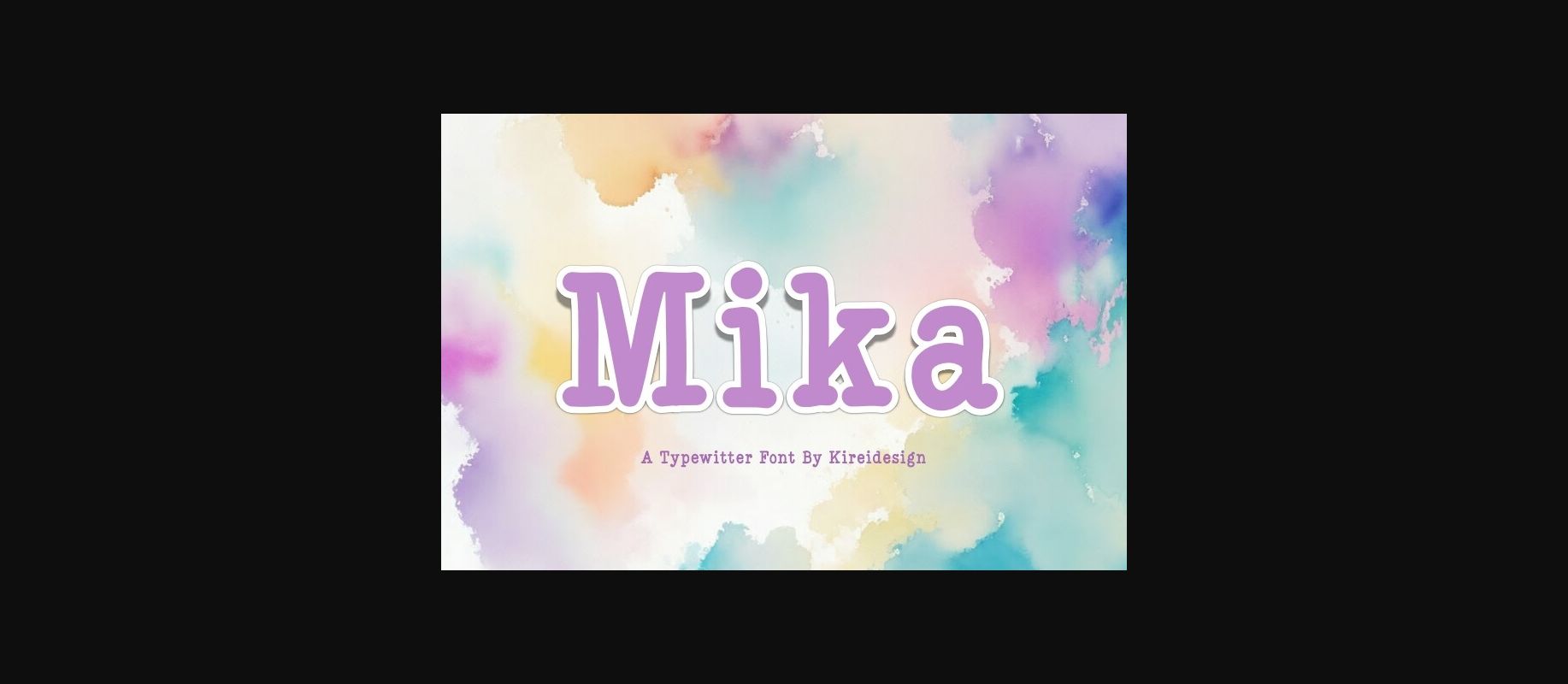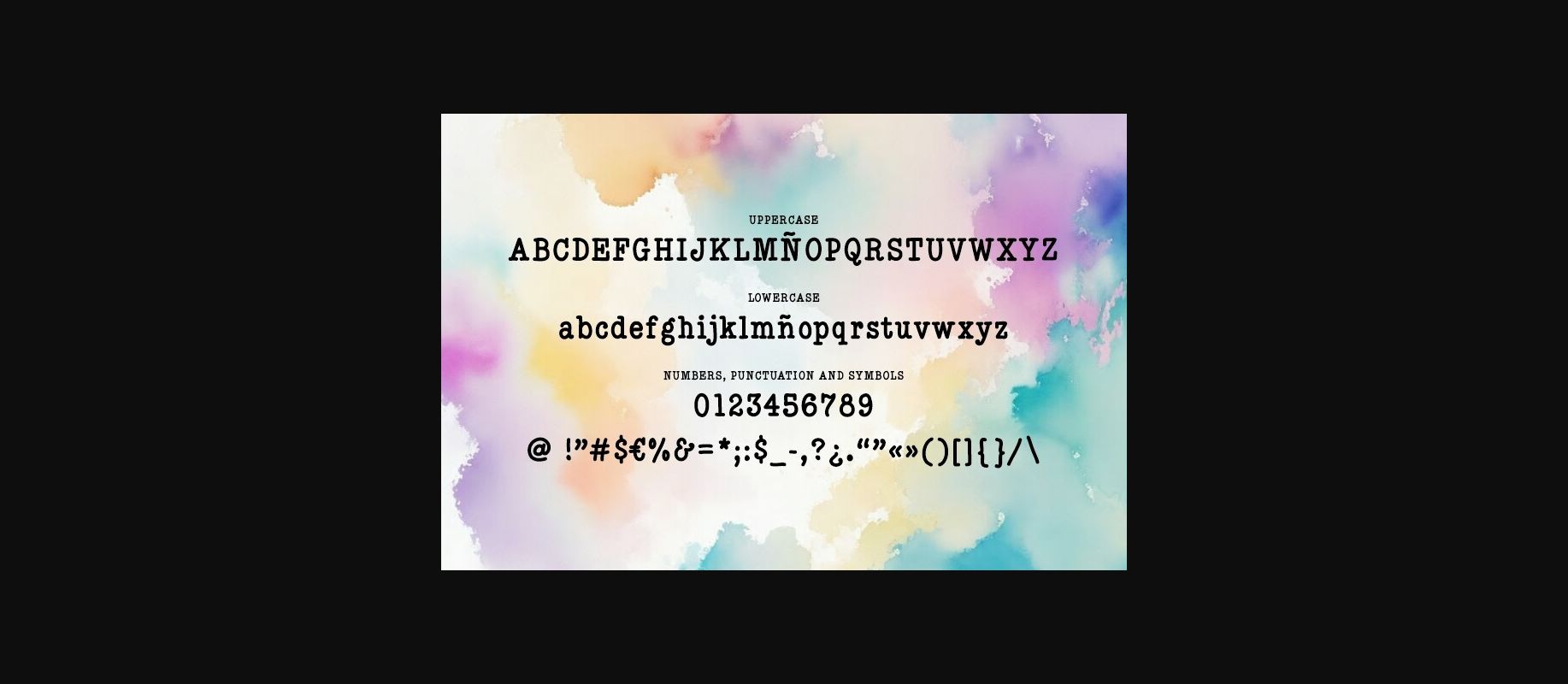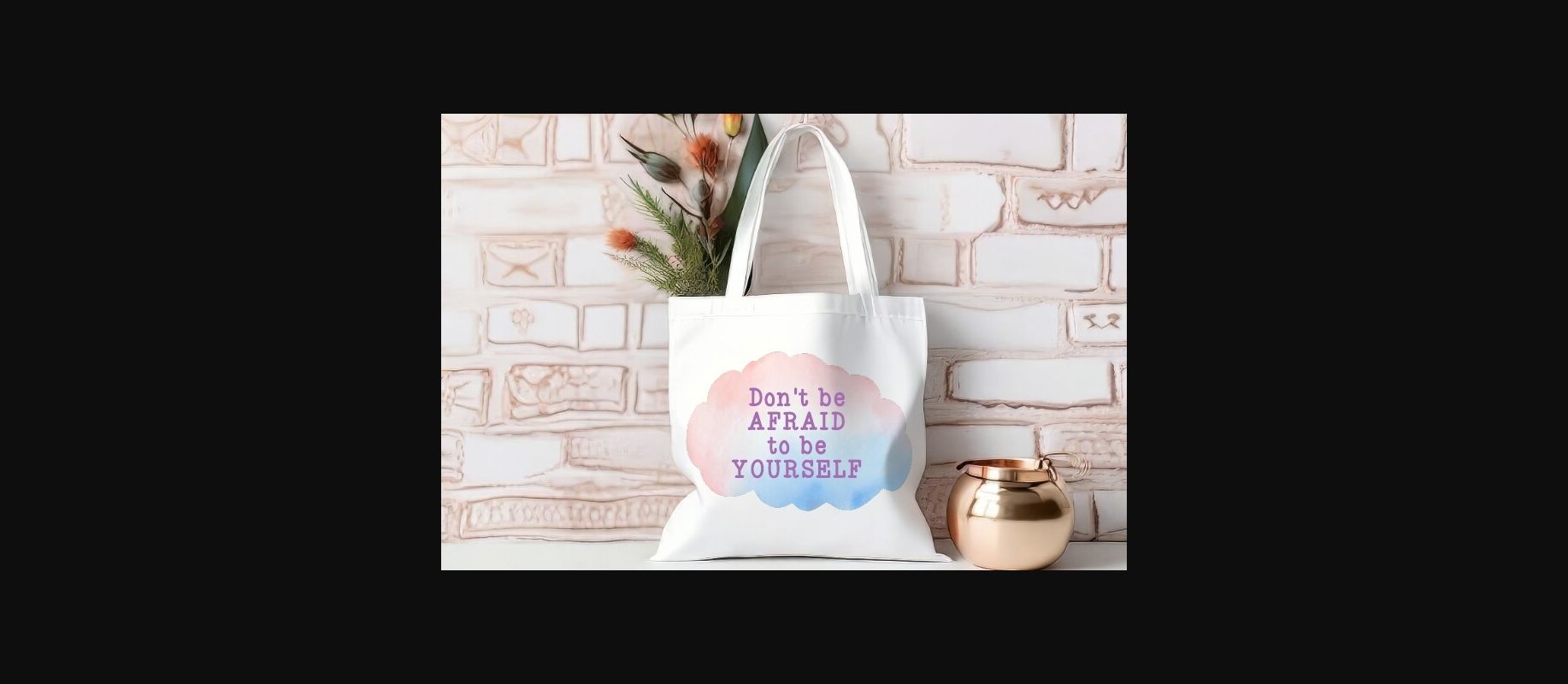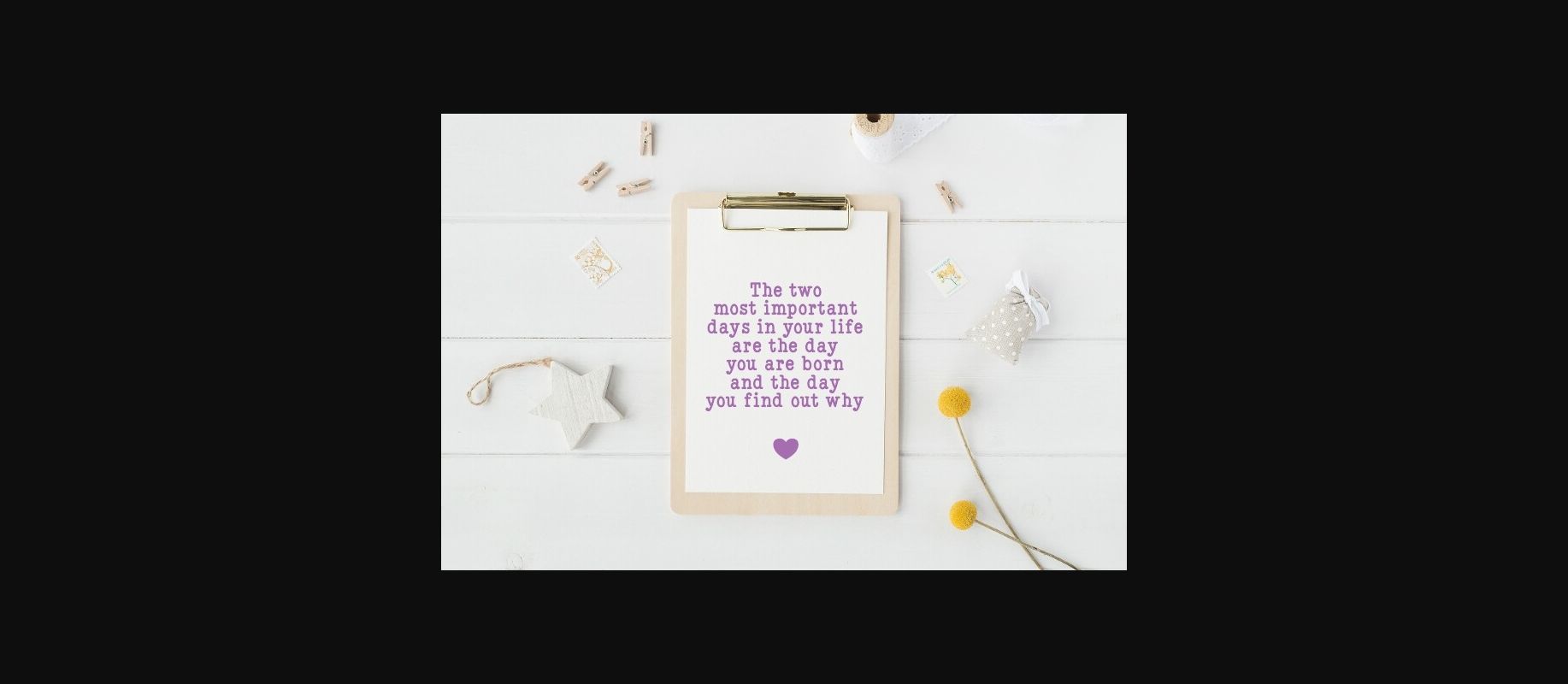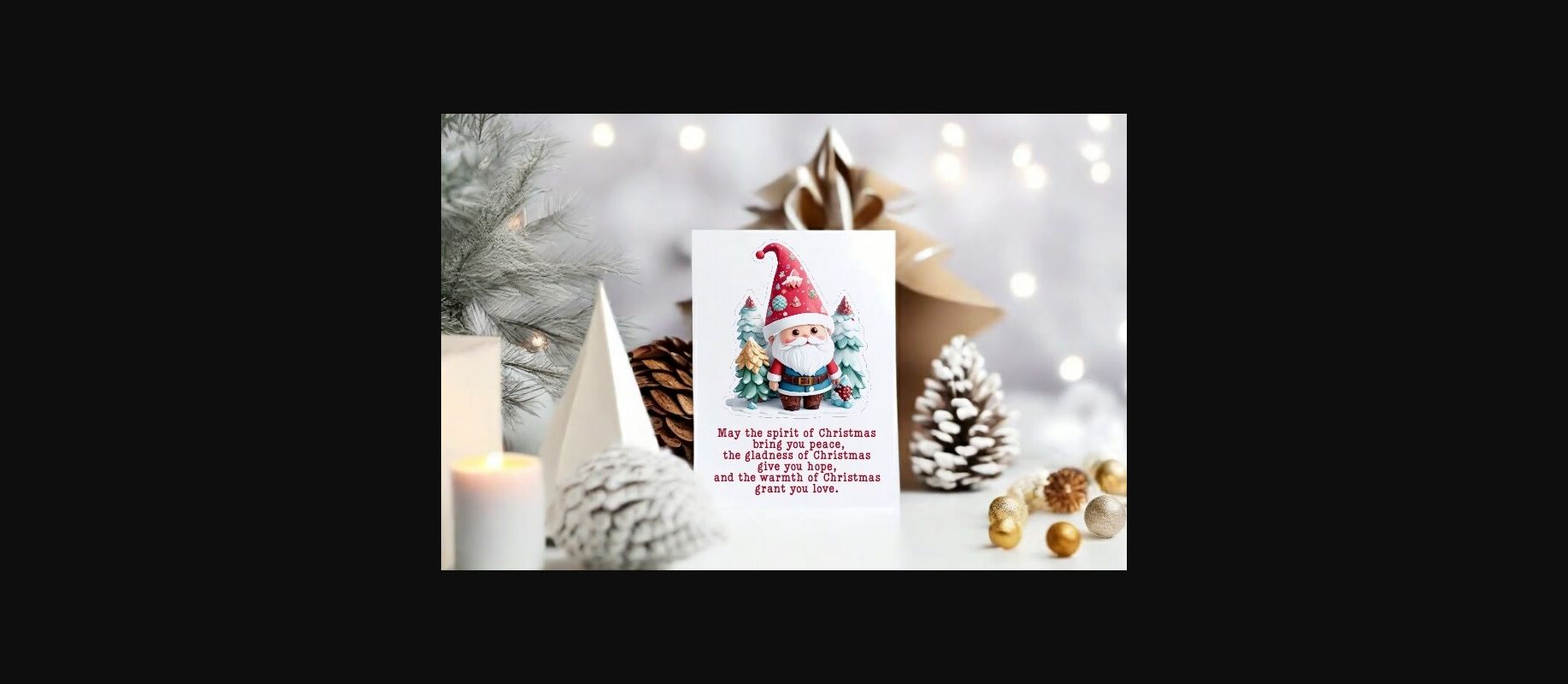
Mika Font
About Mika Font
Mika is a modern typewriter font and is compatible with the English and Spanish characters. Standard punctuation glyphs are included. Mika is ideal for artists and designers.